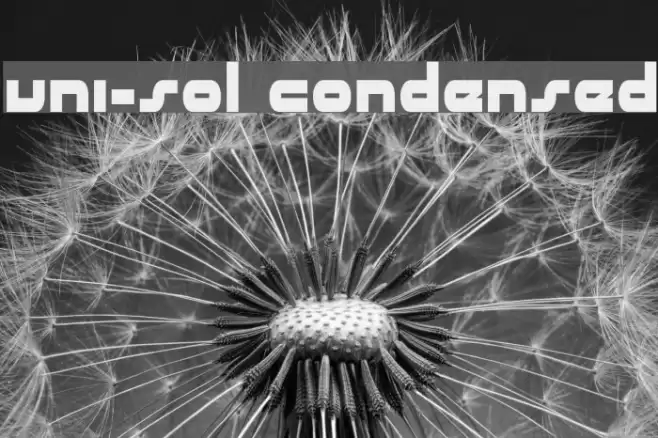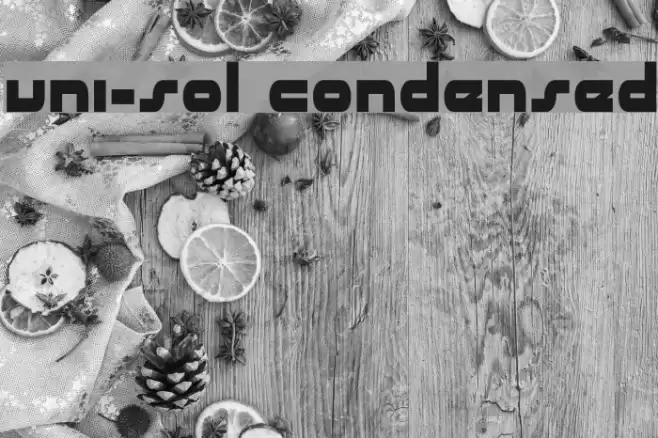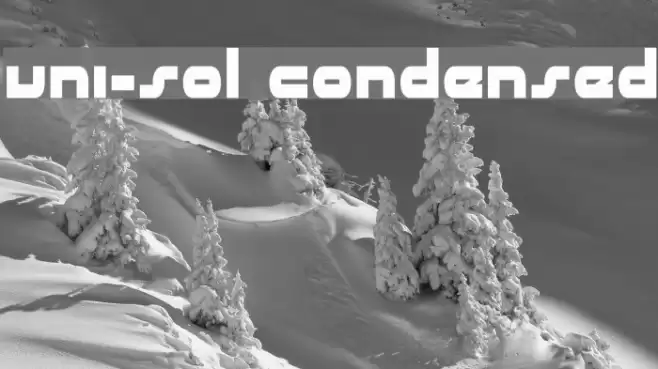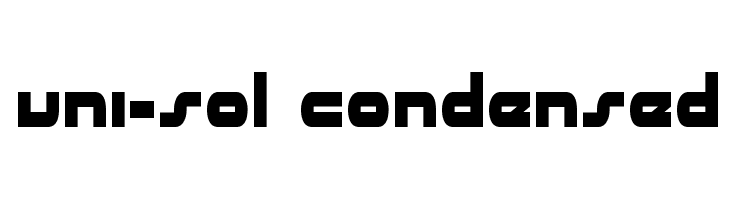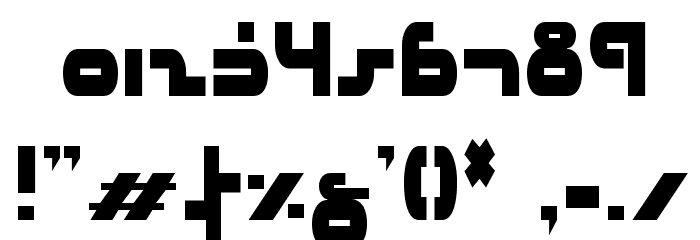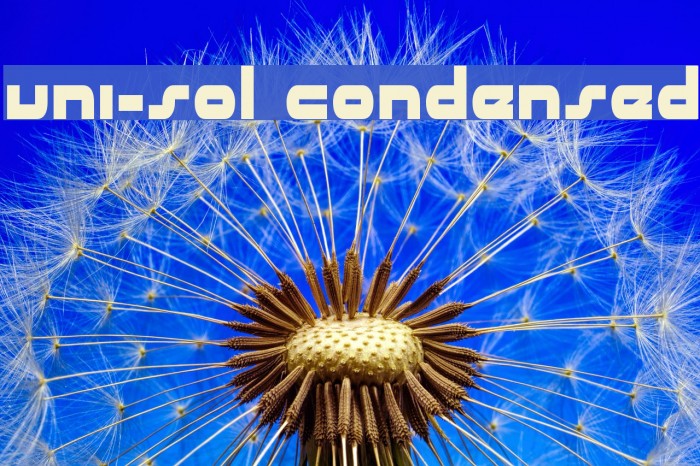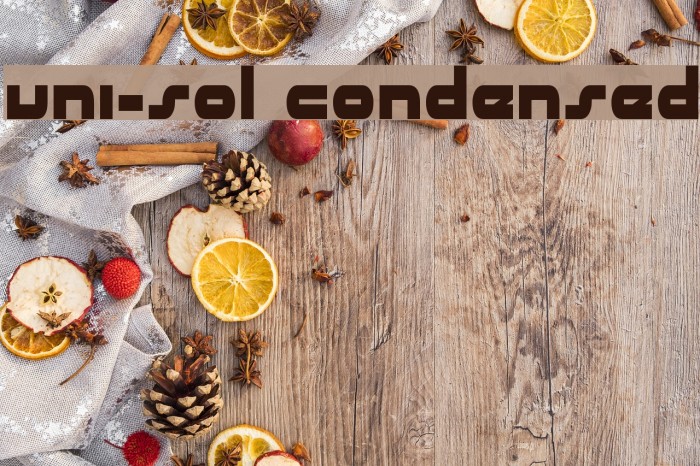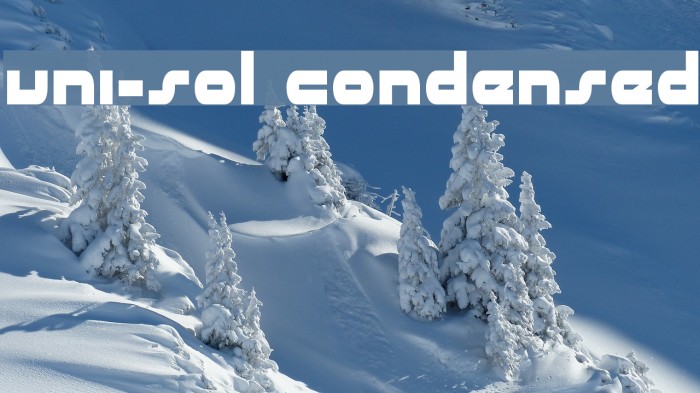
uni-sol condensed Font
uni-sol condensed Description
This font features a bold, geometric style with a condensed width, giving it a modern and futuristic appearance. The characters are constructed with thick, uniform strokes, creating a strong visual impact. The angular design and sharp edges contribute to its distinctive look, making it suitable for attention-grabbing headlines and display purposes. The uppercase and lowercase letters maintain a consistent height, enhancing readability while preserving the font's unique aesthetic. The numerals and special characters are designed to match the overall style, ensuring a cohesive appearance across all text elements.
A bold, geometric, and condensed font with a modern, futuristic style from Uncategorized fonts.
- Proposed Projects: Ideal for use in technology branding, sci-fi themed posters, video game titles, and modern advertising campaigns.